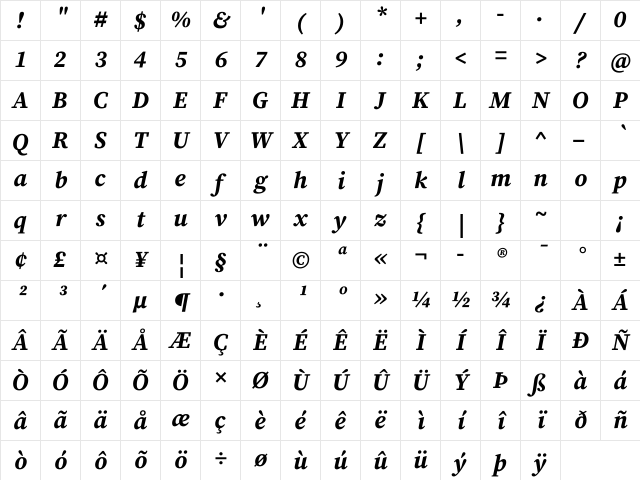
Source Serif Pro Bold Italic
Designer: Frank Grie￿ammer
Design Context for Source Serif Pro
Source Serif Pro carries the refined structure of traditional serif typography, with bracketed terminals and considered proportions that communicate credibility and craft. The slanted form adds forward momentum and visual energy. Its bold stroke weight gives it real presence on the page.
Pro Tip: Use Source Serif Pro for editorial body copy and considered headline work. Pair with a neutral sans for UI elements or captions to create a classic hierarchy.